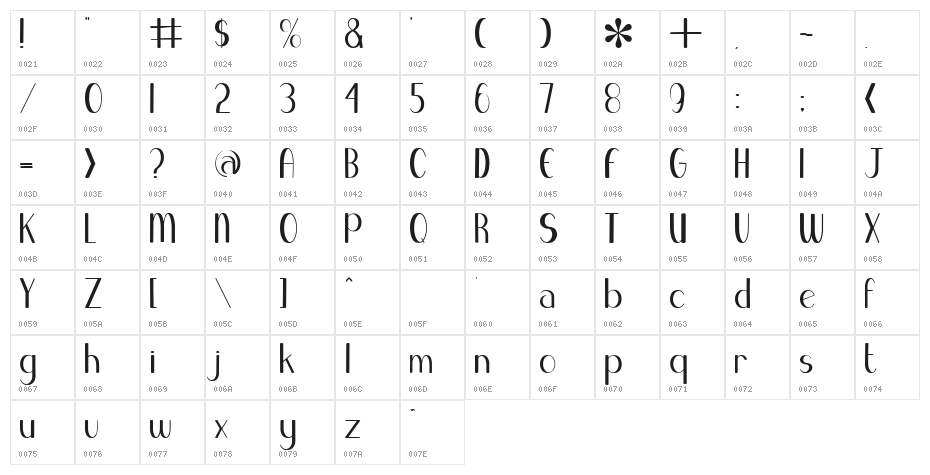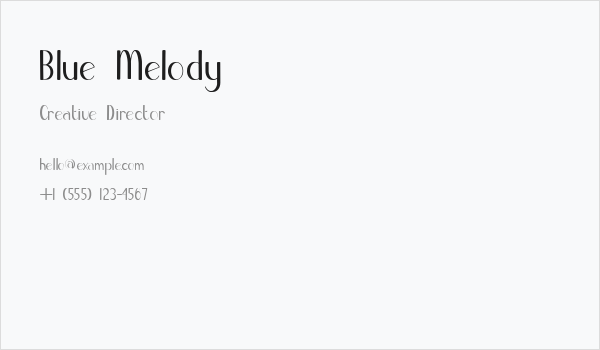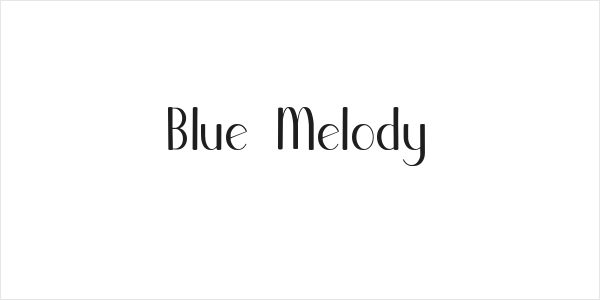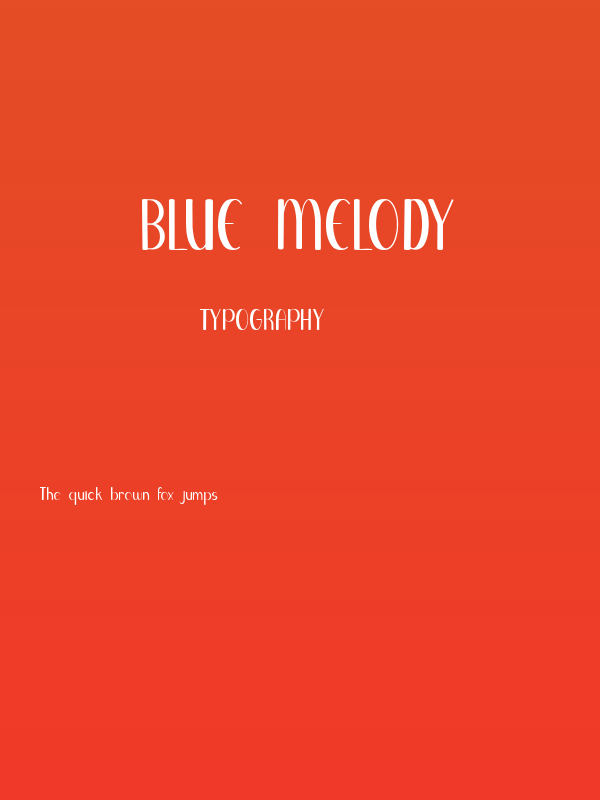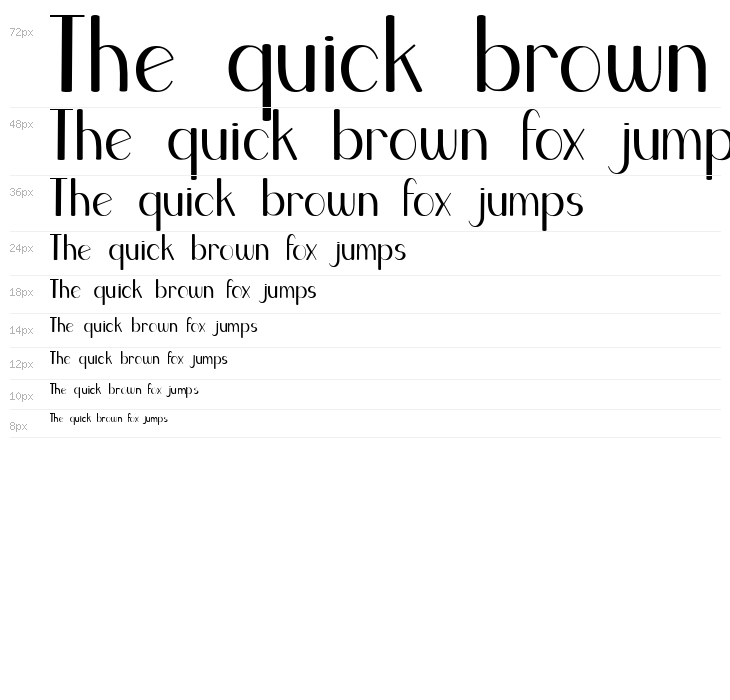
Blue Melody Font
| 分类 | Modern |
| 宽度 | Condensed |
| 整体风格 | Elegant and modern with vintage influences. |
| 使用场景 | Headlines, Logos, Editorial design |
| 推荐项目 | Ideal for branding, editorial design, fashion magazines, and luxury product packaging. |